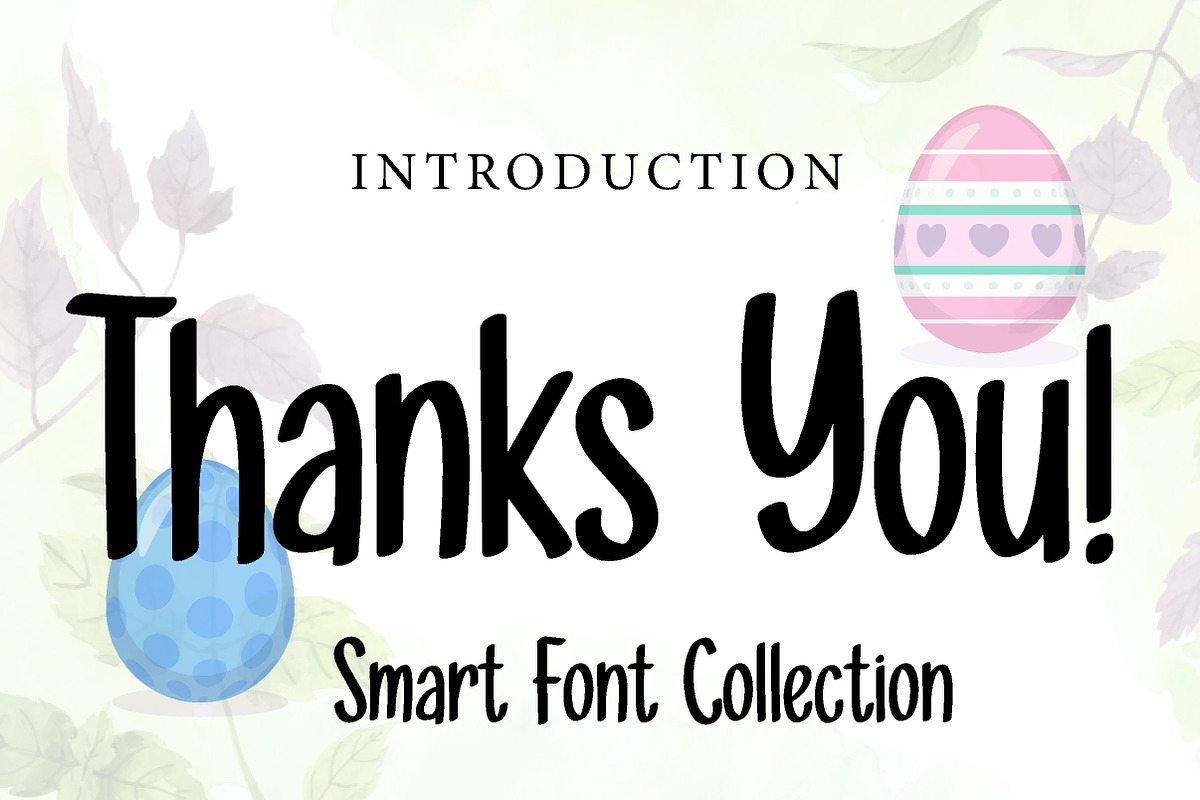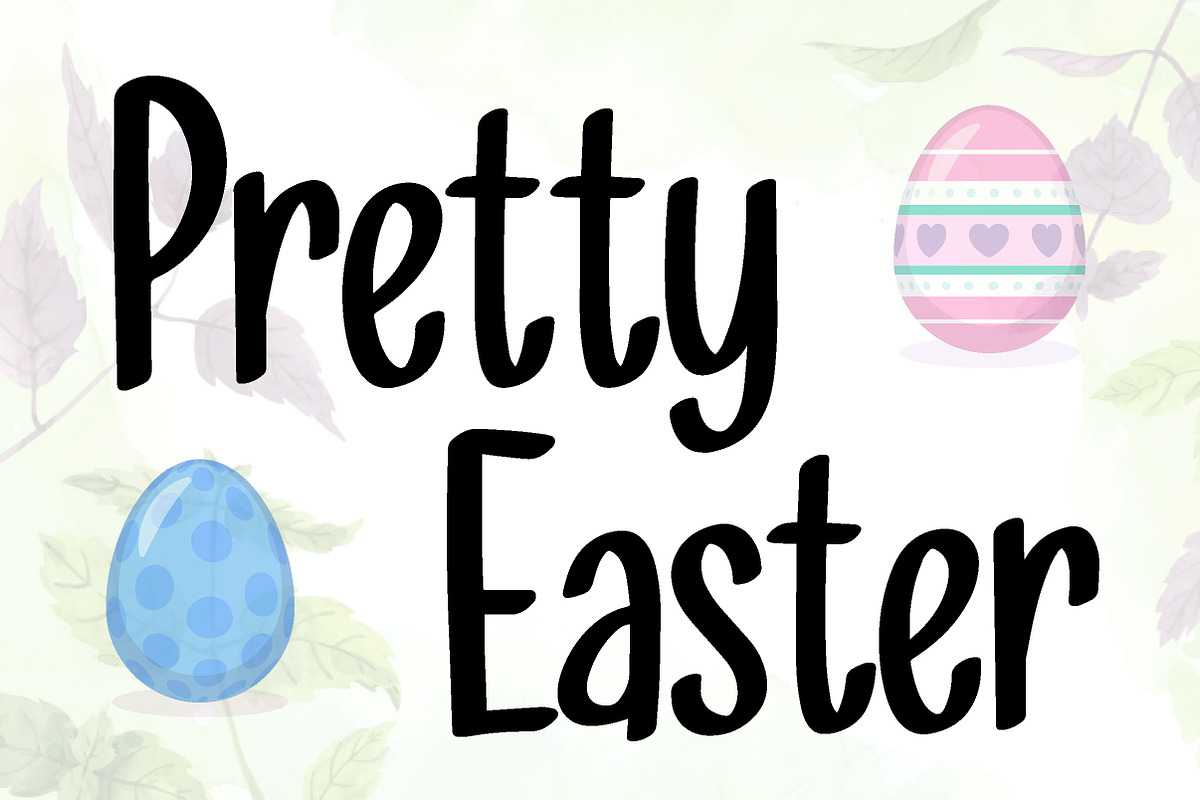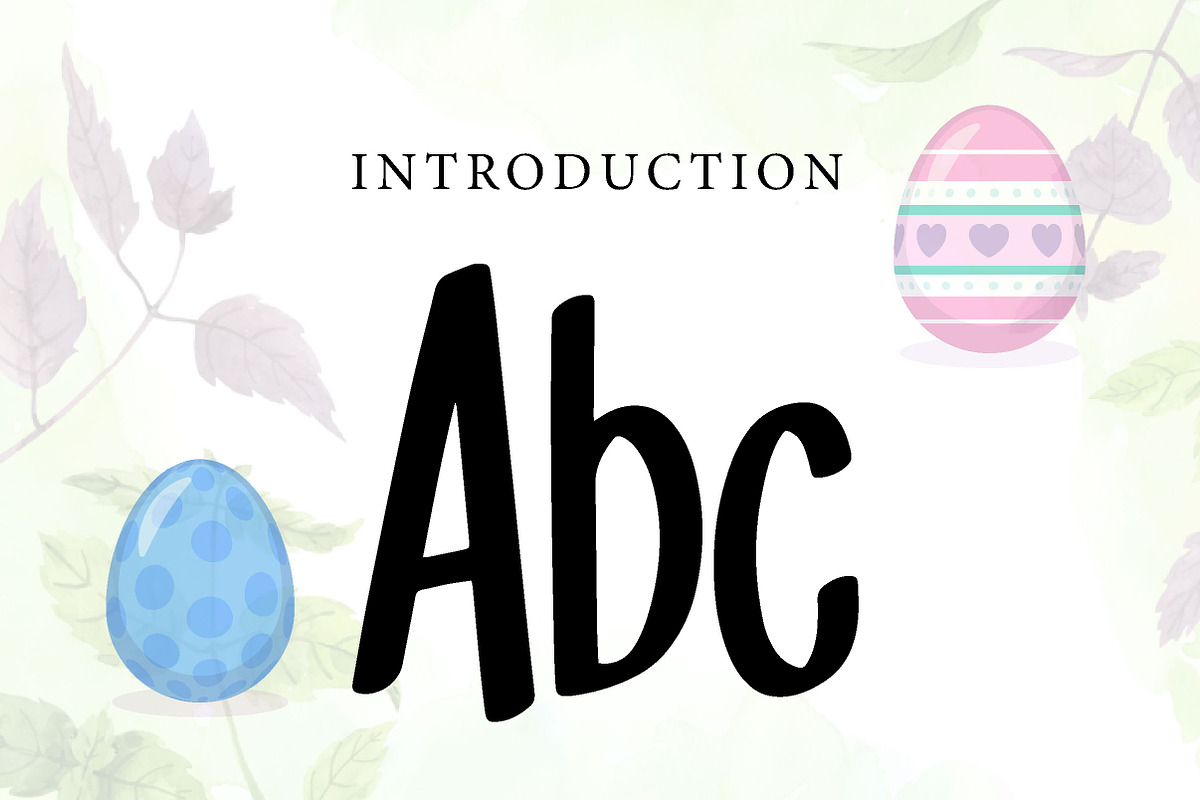
Pretty Easter
Pretty Easter – Cute Festive Handwritten Font
Pretty Easter is a cute, soft, and playful handwritten font, perfect for Easter designs, invitations, greeting cards, branding, and cheerful seasonal projects.
Pretty Easter is a sweet and charming handwritten font designed to bring joy, warmth, and a festive feel to your designs. With its smooth strokes, rounded shapes, and friendly letterforms, this font creates a soft and playful look that feels perfect for spring and holiday themes.
Its cheerful and approachable style makes Pretty Easter ideal for projects that need a cute and lively touch. Whether you are designing Easter greeting cards, spring invitations, product packaging, kids branding, social media graphics, stickers, or fun logo concepts, this font helps your typography feel more expressive, fresh, and memorable.
The clean handwritten flow keeps your text easy to read while adding a personal and creative character. Suitable for both print and digital use, Pretty Easter is a wonderful choice for designers who want a font that feels festive, cute, and full of charm.